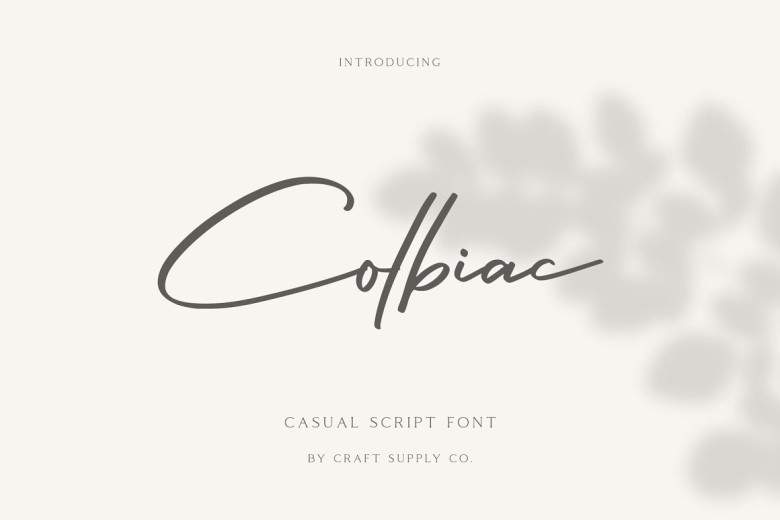
Colbiac Font
Colbiac – is a casual handwritten script font based on the expression of real handwriting. Colbiac – Casual Script Font will work perfectly for fashion, e-commerce brands, trend blogs, wedding boutiques or any business that wants to appear upscale and chic.
Colbiac Handwritten Script Font